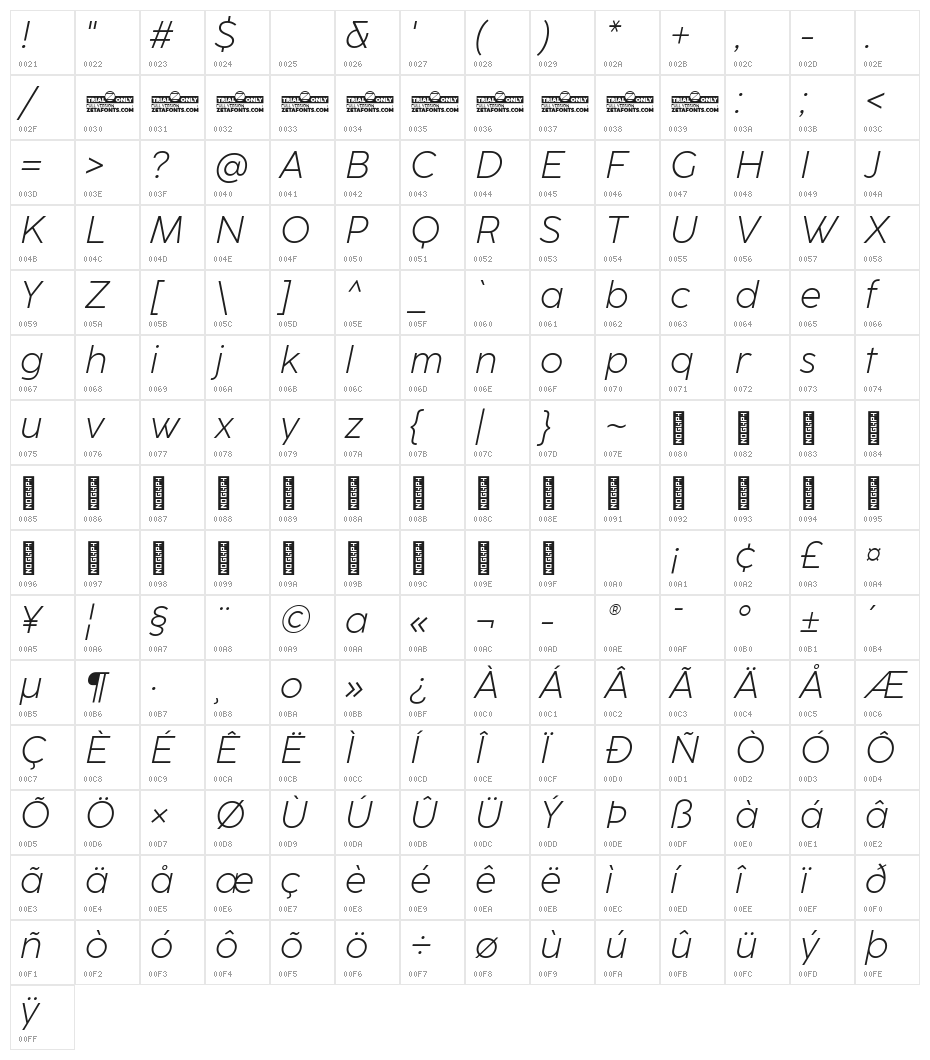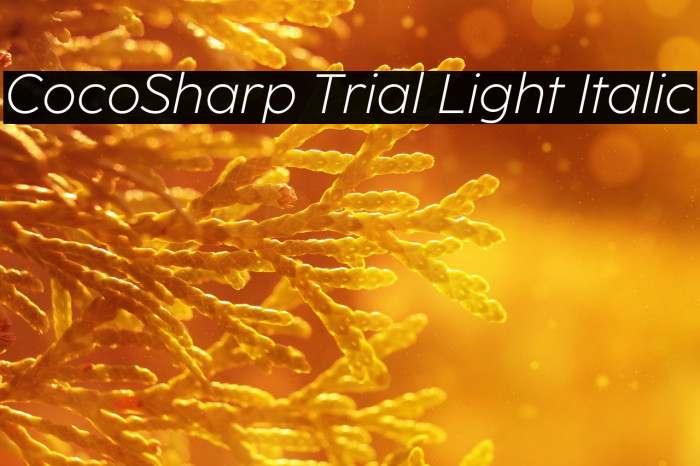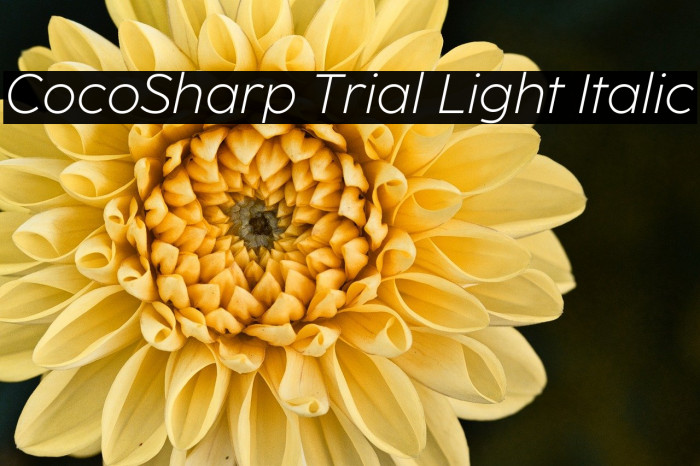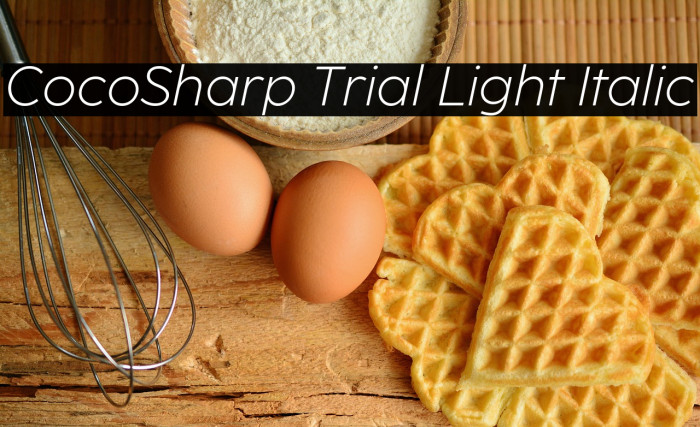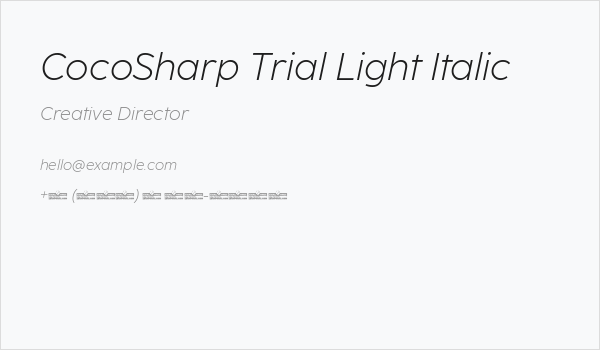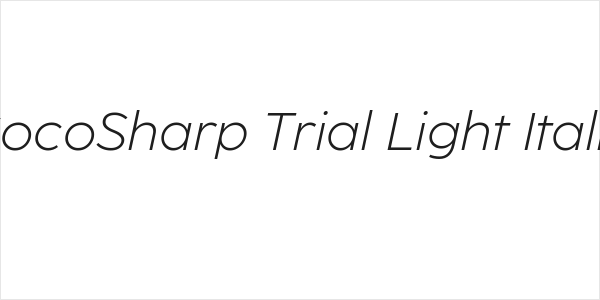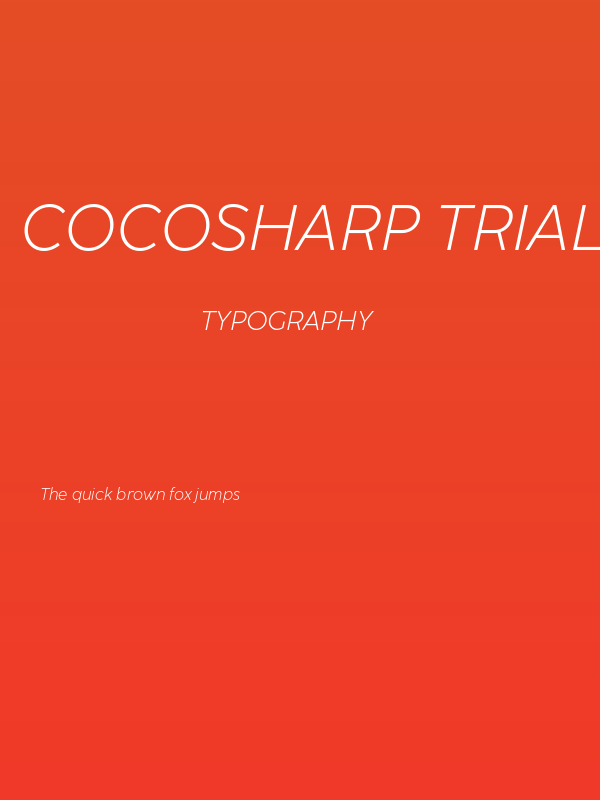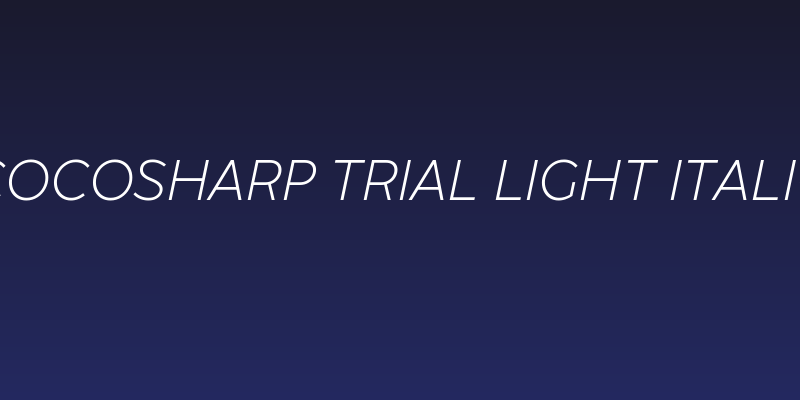
CocoSharp Trial Light Italic Font
CocoSharp Trial Light Italic Description
This font exhibits a sleek and modern aesthetic with a light weight and italic style. The characters are elegantly crafted with a slight slant, giving a sense of motion and fluidity. The sans-serif design ensures a clean and uncluttered appearance, making it versatile for various applications. The uppercase and lowercase letters maintain a consistent style, with smooth curves and sharp edges that enhance readability. The numerals and special characters are designed to match the overall style, providing a cohesive look across all elements.